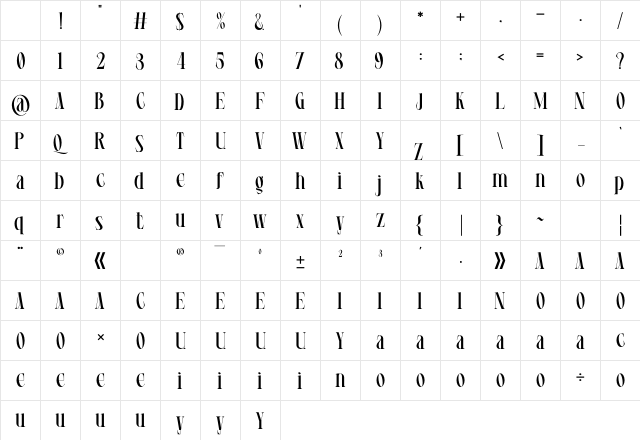
Complete WOLVES DEMO VERSION Regular glyph index. Displaying only characters natively supported by WOLVES DEMO VERSION Regular font.
WOLVES DEMO VERSION is a composed and adaptable typeface that performs quietly and consistently across a wide range of design contexts.